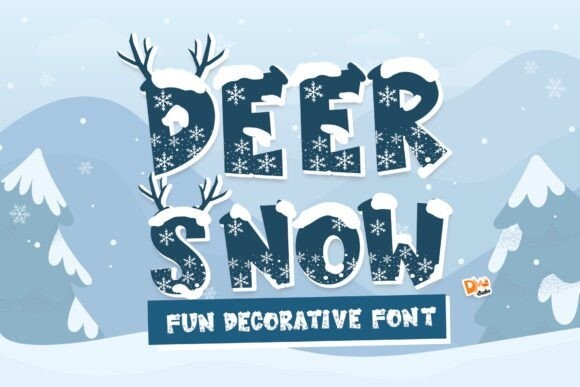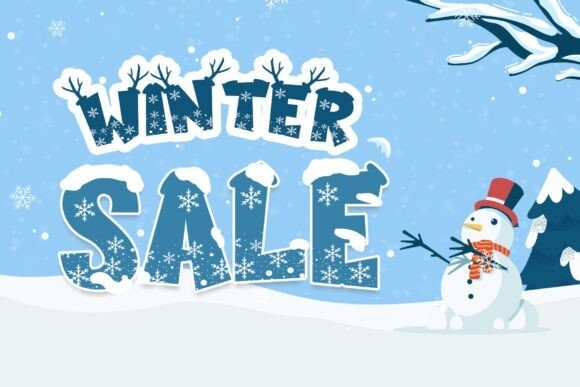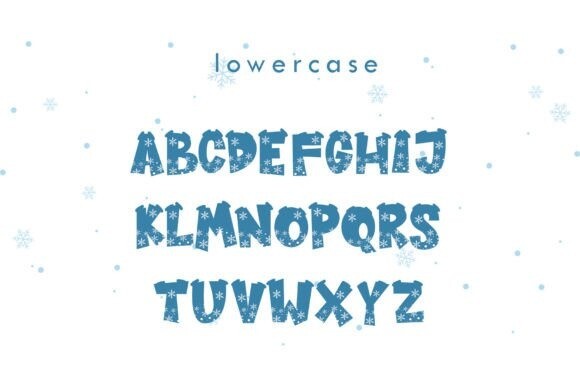
Deer Snow Font
Deer Snow Font is a cute and lovely decorative font. Fun and snowy, this font is perfect for all your wintery and Christmas-related creative projects!